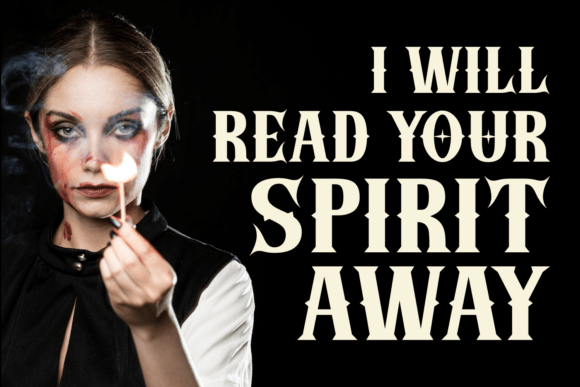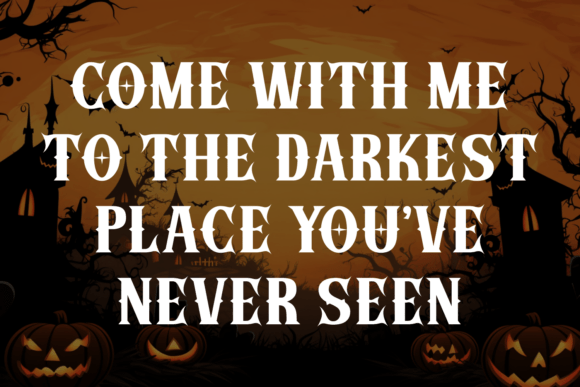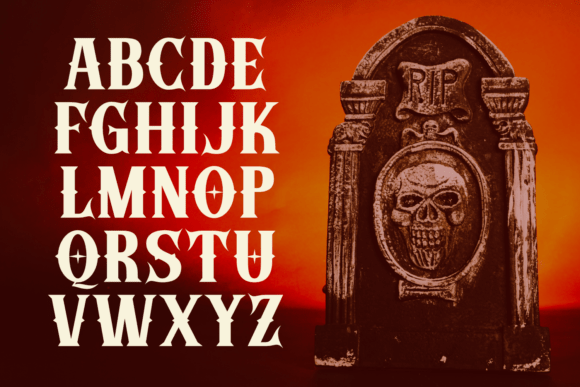
Introduction to Grave Night Font
Grave Night is a haunting blackletter typeface with bold, angular strokes and a gothic presence that evokes mystery and darkness.
Perfect for horror themes, Halloween designs, posters, book covers, heavy metal branding, and eerie merchandise, this font brings a chilling yet stylish touch to your creative projects Grave Night combines old-world blackletter tradition with a modern spooky edge.